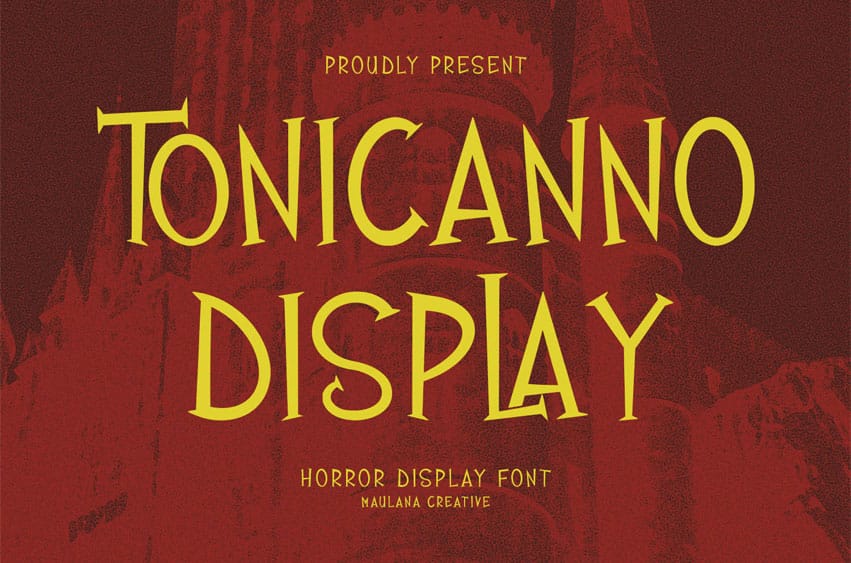
Tonicanno Font is a decorative display font. With bold strokes, fun character with a bit of ligature. To give you extra creative work. Tonicanno font supports multilingual language.
This font is good for logo design, Social media, Movie Titles, book titles, short text even a long text letter, and good for your secondary text font with sans or serif. Make a stunning work with Tonicanno font.